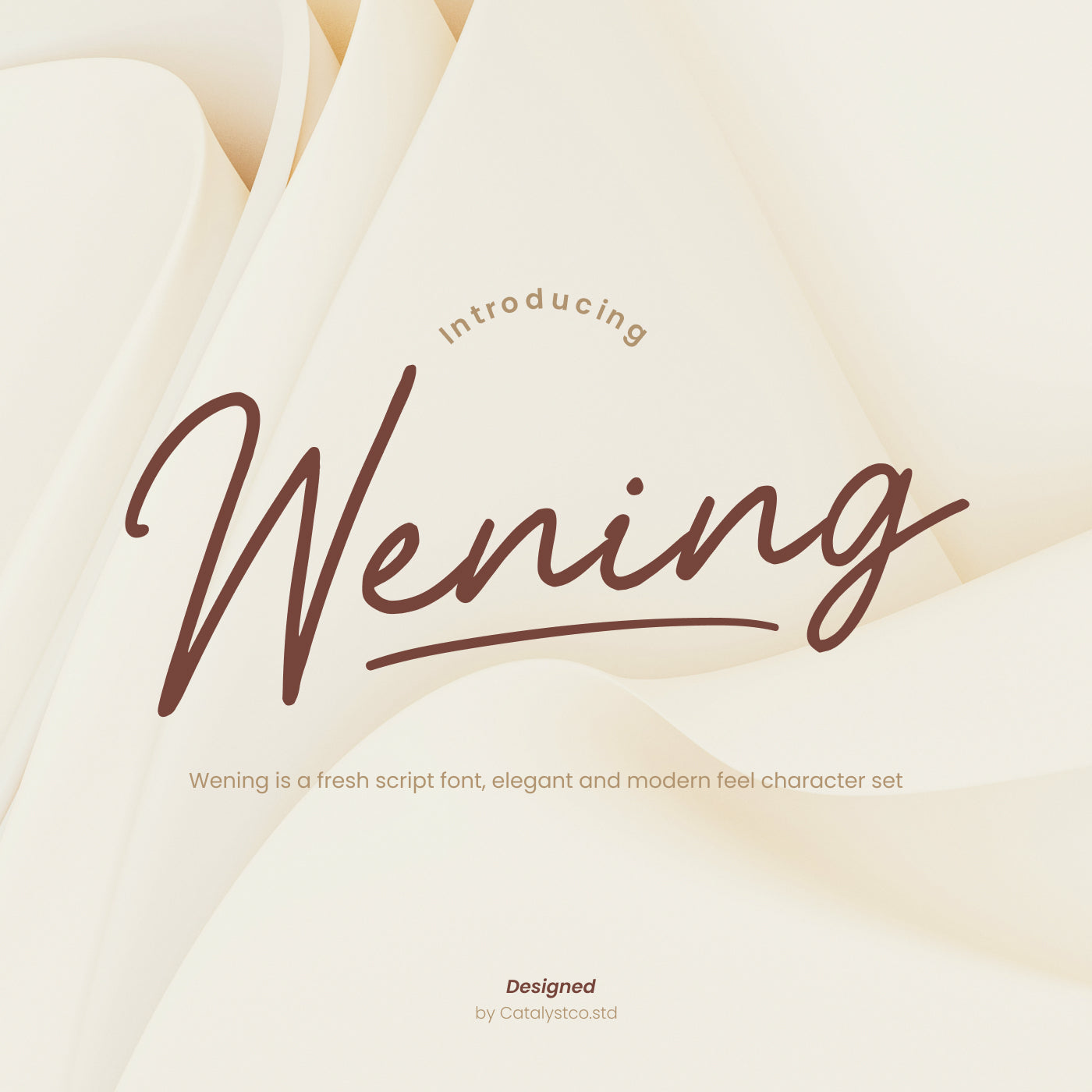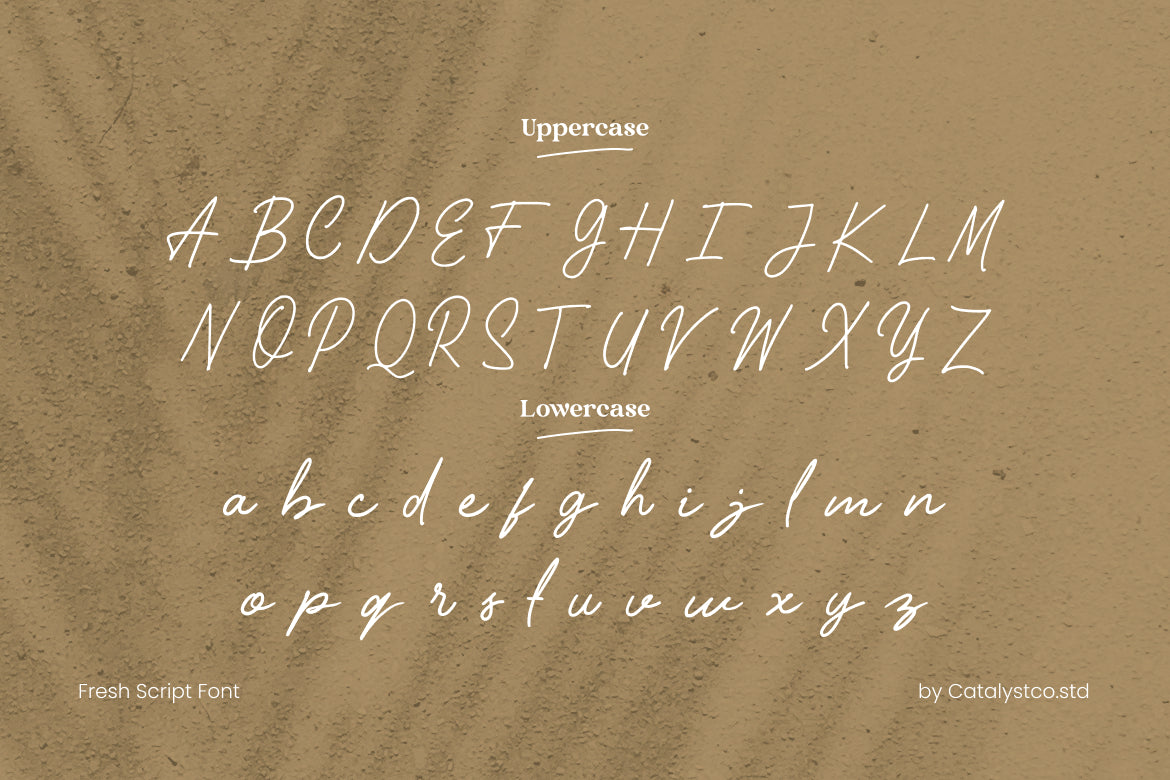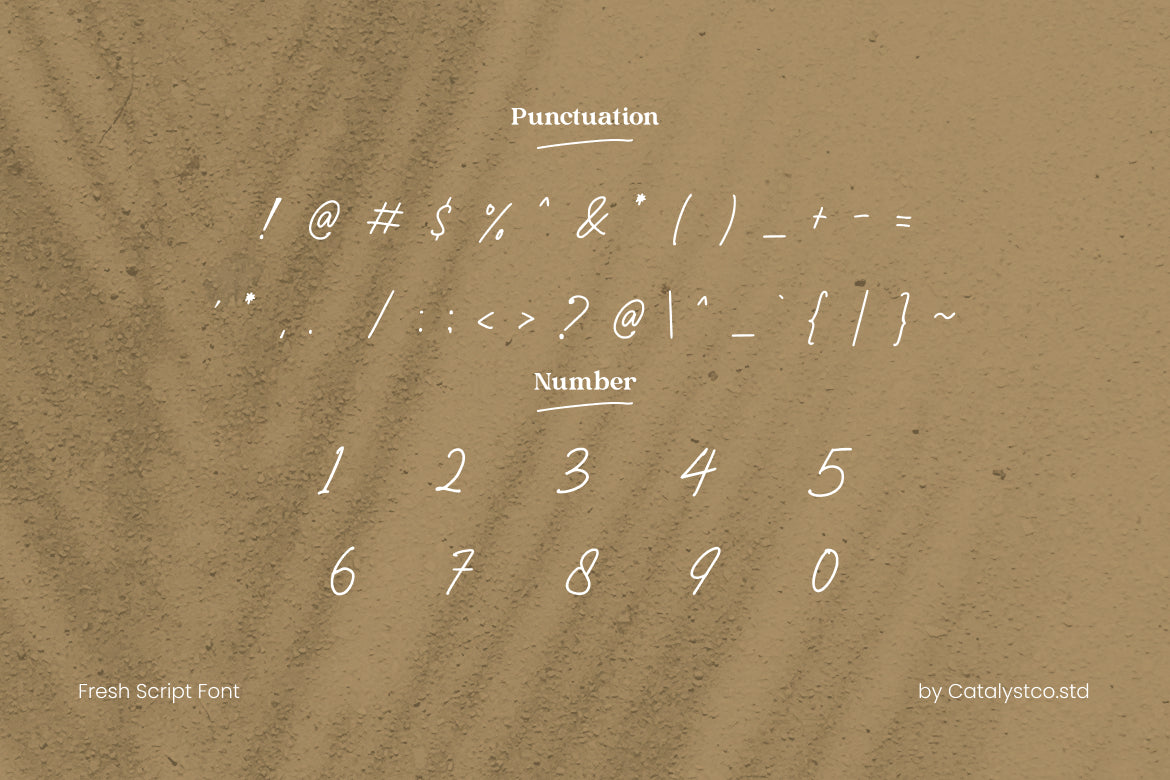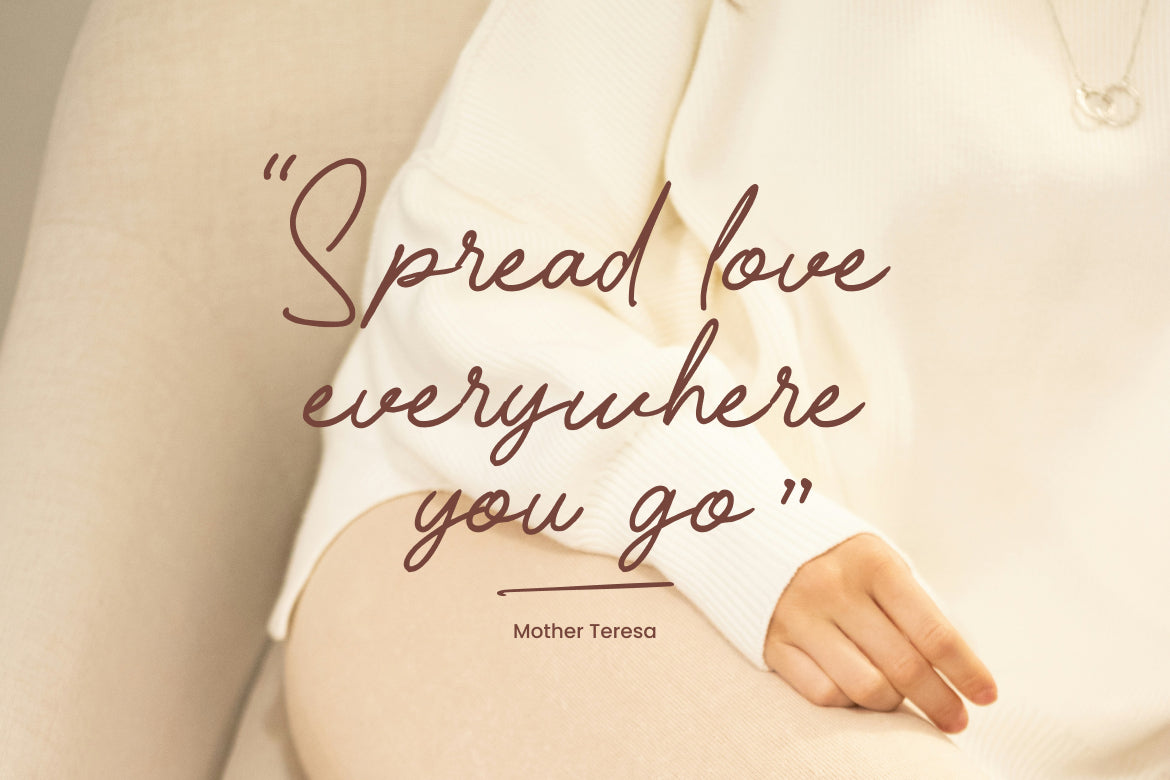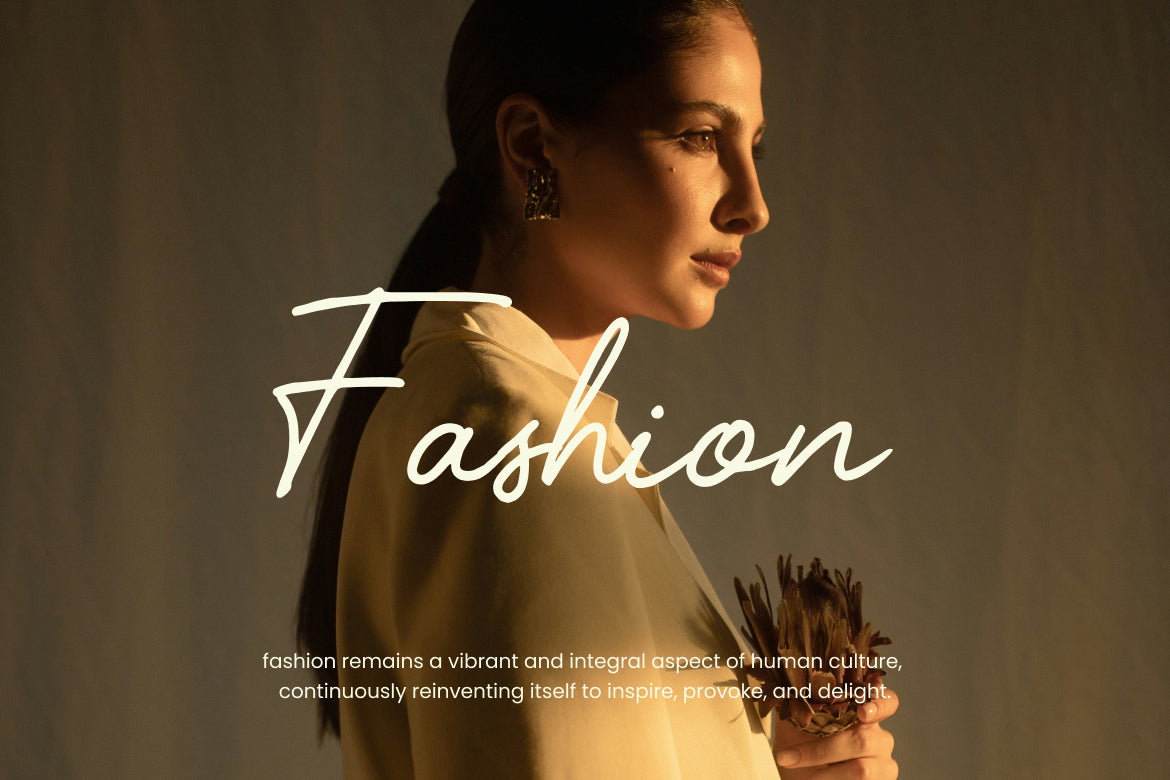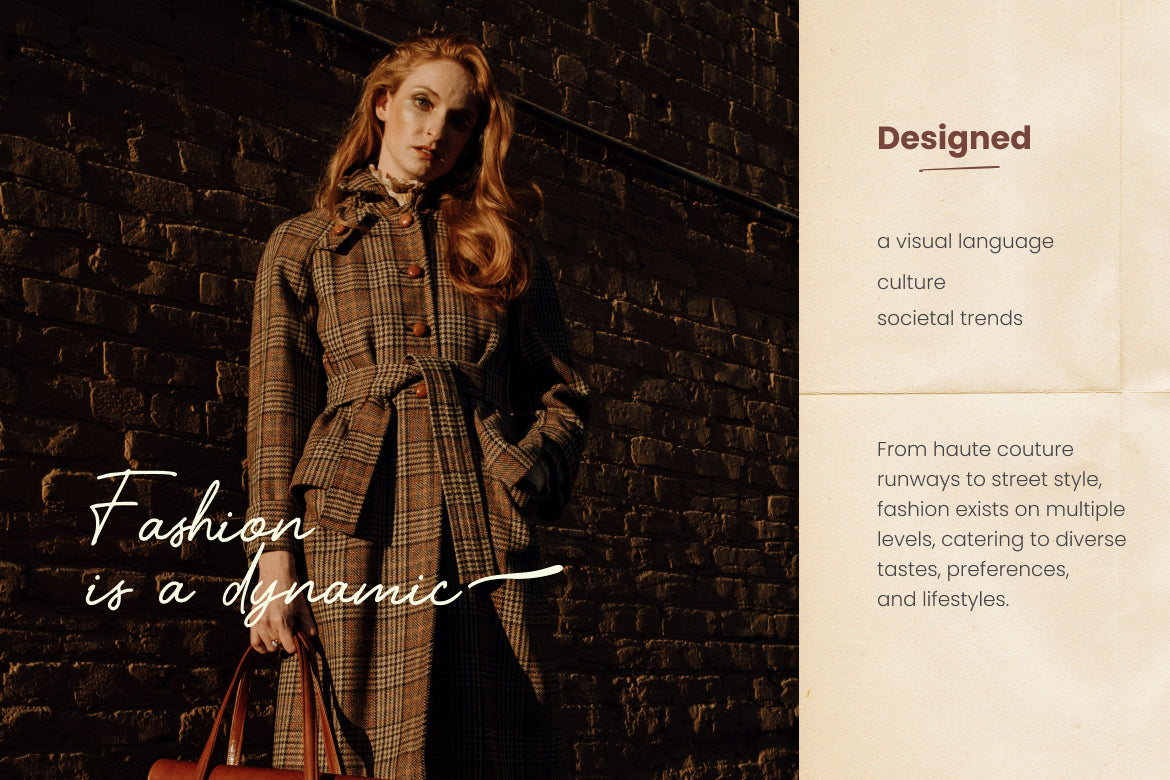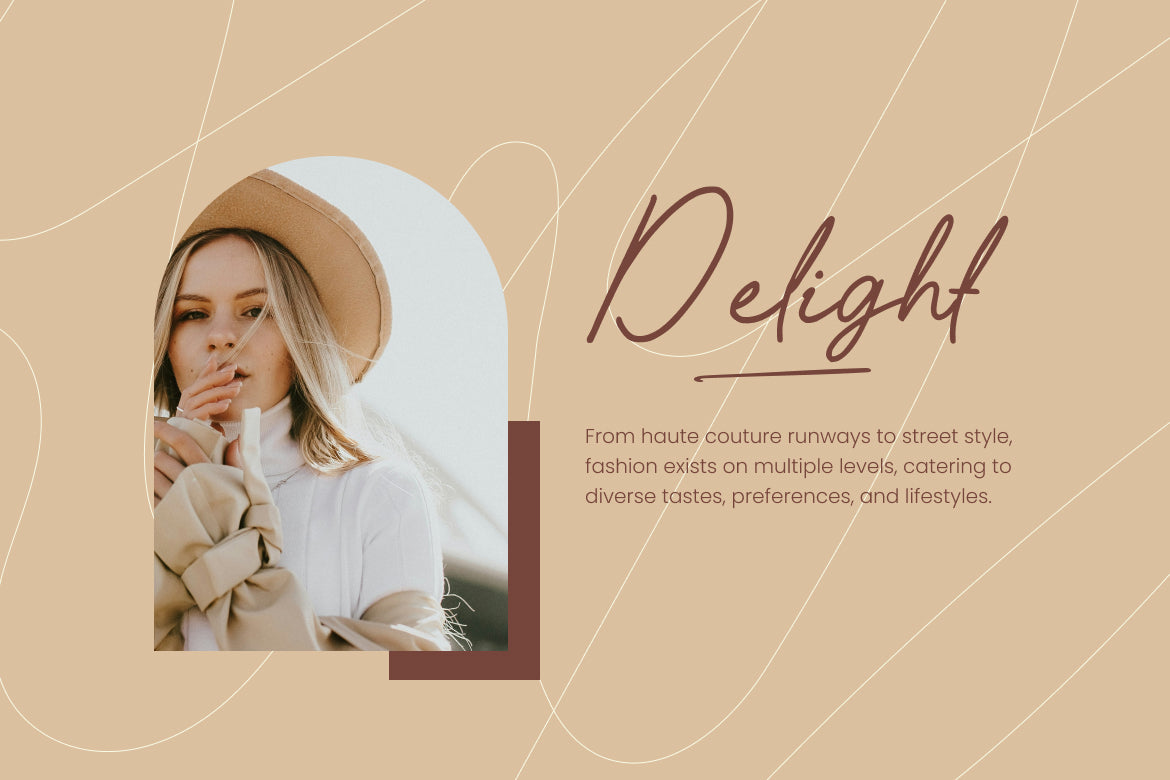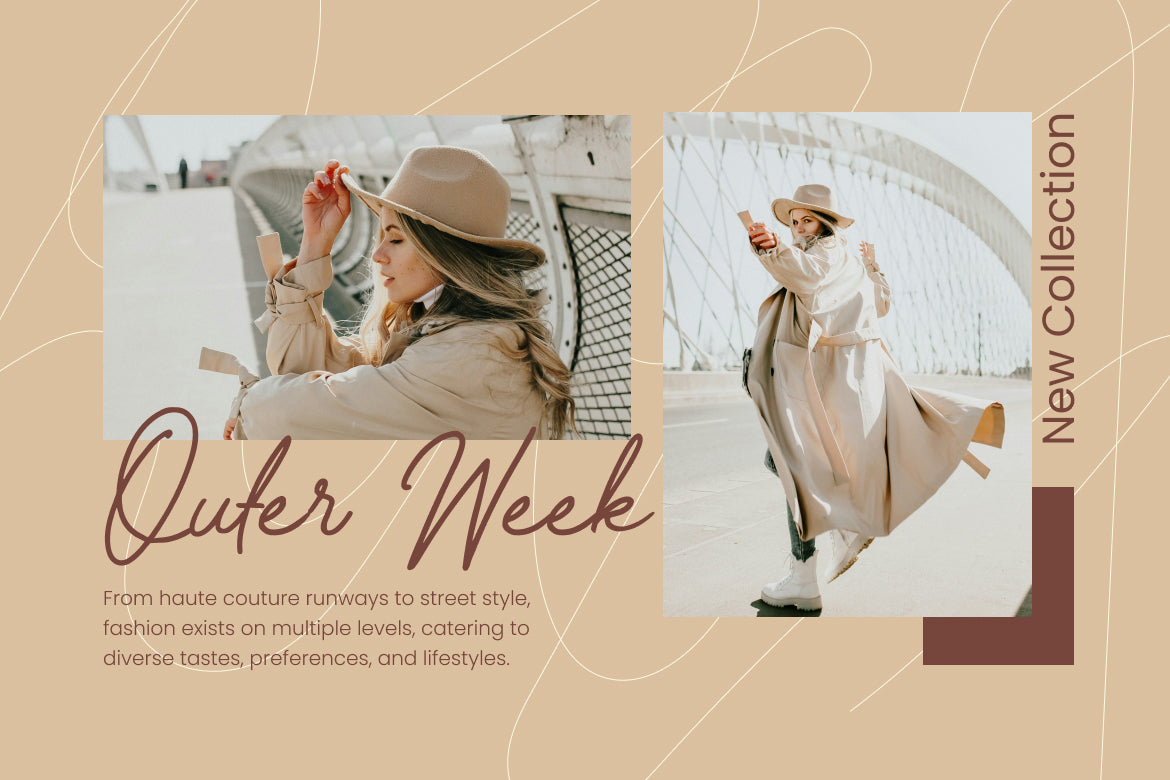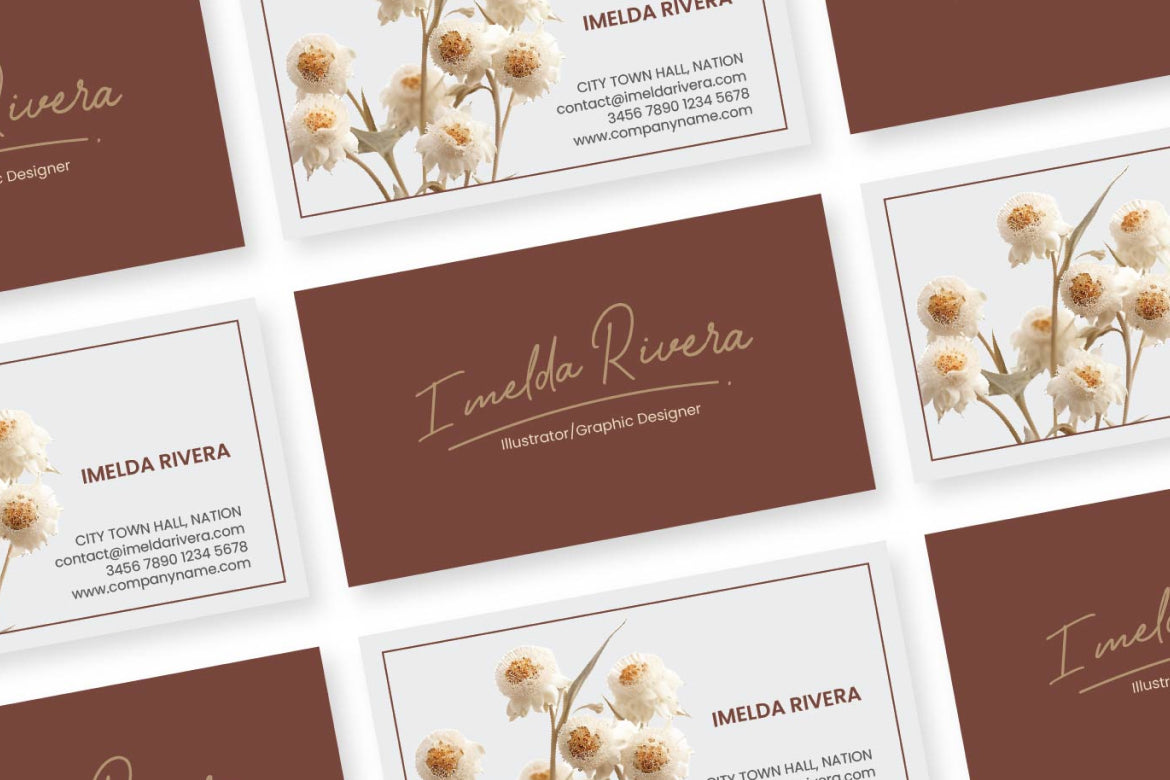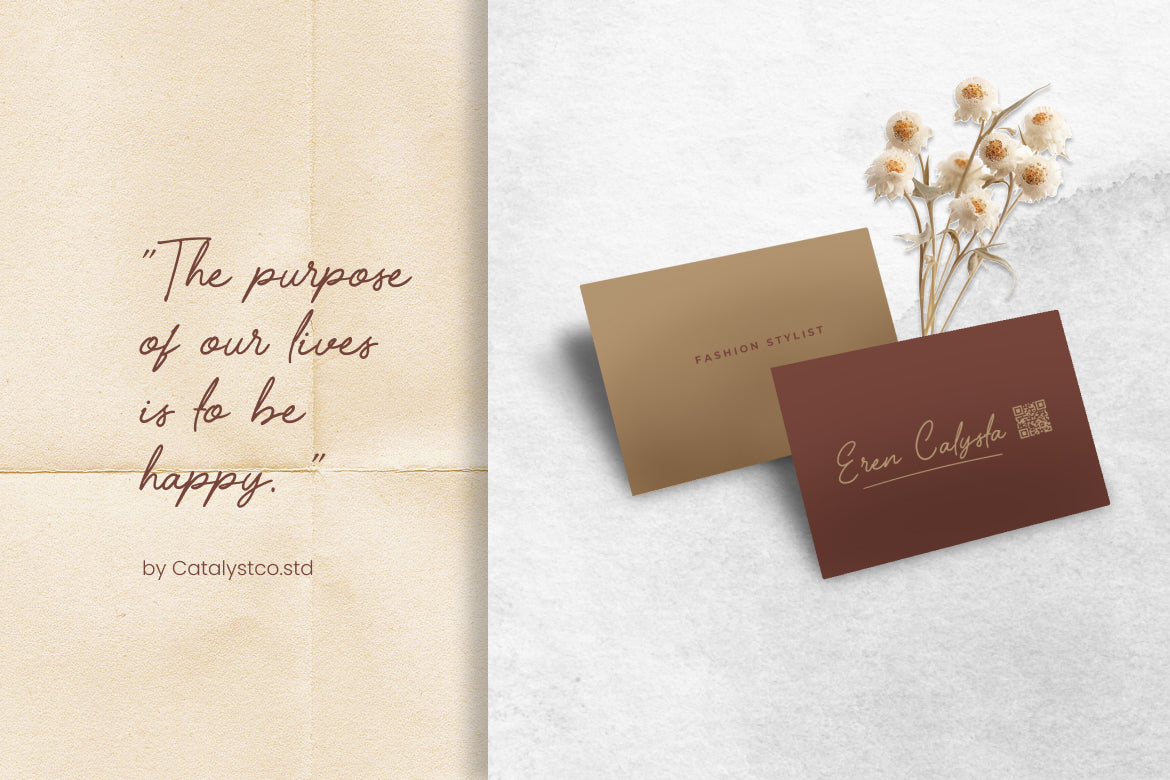
Wening Script Elegant Font
Wening Fresh Script Font is a fresh and elegant script font featuring smooth curves, flowing strokes, and a refined handwritten character style. Its modern yet natural feel creates a clean, feminine aesthetic suitable for branding, packaging, quotes, and stylish visual identities. Designed with balanced spacing and graceful letterforms, Wening delivers a polished handwritten look that works beautifully for both digital and print projects. Available in OTF, TTF, and WOFF formats with complete uppercase, lowercase, numerals, and punctuation.
Relevance and Use Cases is perfect for branding projects, elegant logo design, wedding stationery, quotes, social media posts, boutique packaging, feminine identity systems, beauty and lifestyle visuals, product labels, premium editorial layout, branding, logo design, wedding invitations, feminine visual identities, boutique packaging, beauty and lifestyle projects, social media graphics, elegant quote designs, and promotional materials requiring a clean handwritten aesthetic.
Wening Script Elegant Font is a handwritten script font with smooth curves and balanced letterforms, including uppercase, lowercase, numerals, and punctuation. It is available in OTF, TTF, and WOFF formats.